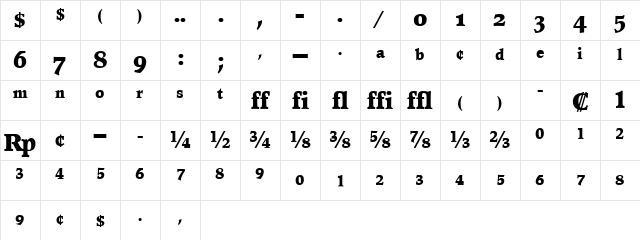
Poppl-PontifexBEExpert Bold Free Font
Poppl-PontifexBEExpert Bold
Design Context for Poppl-PontifexBEExpert
Poppl-PontifexBEExpert is a composed and adaptable typeface that performs quietly and consistently across a wide range of design contexts. Its bold stroke weight gives it real presence on the page.
Pro Tip: Use Poppl-PontifexBEExpert in both headline and body roles to test its range before committing to a single application.